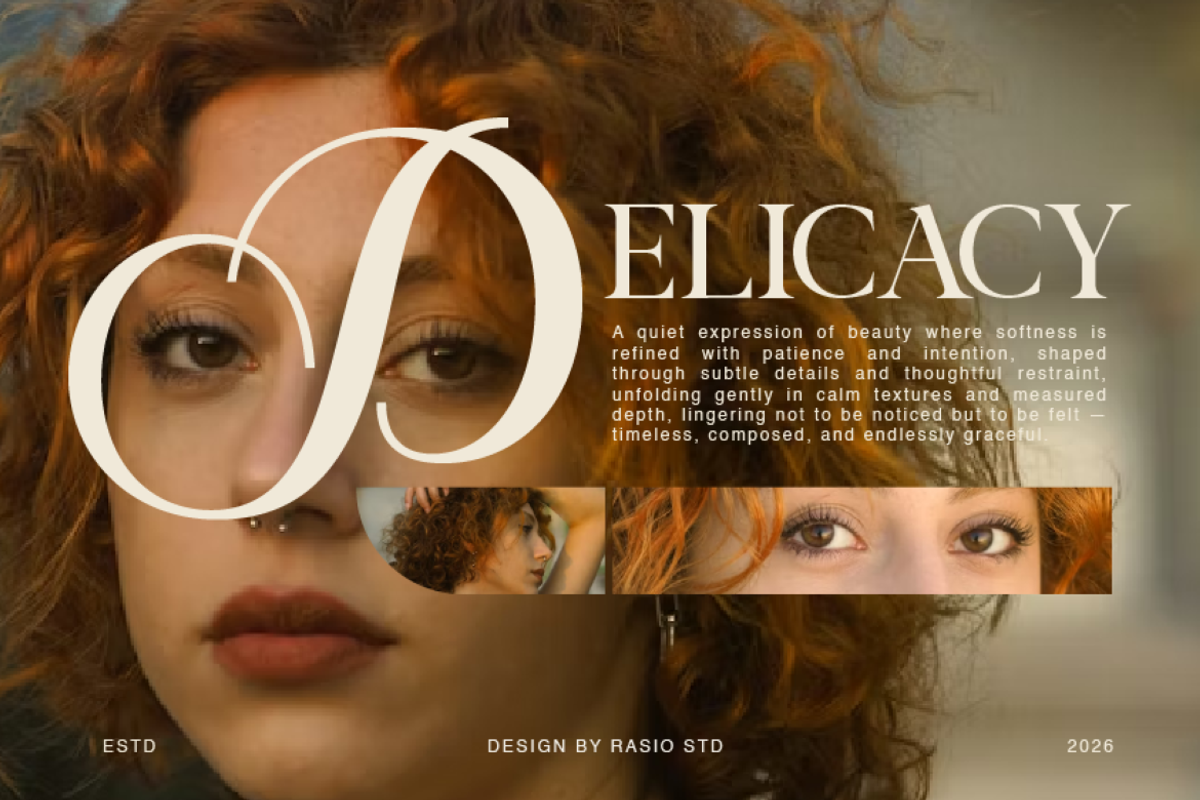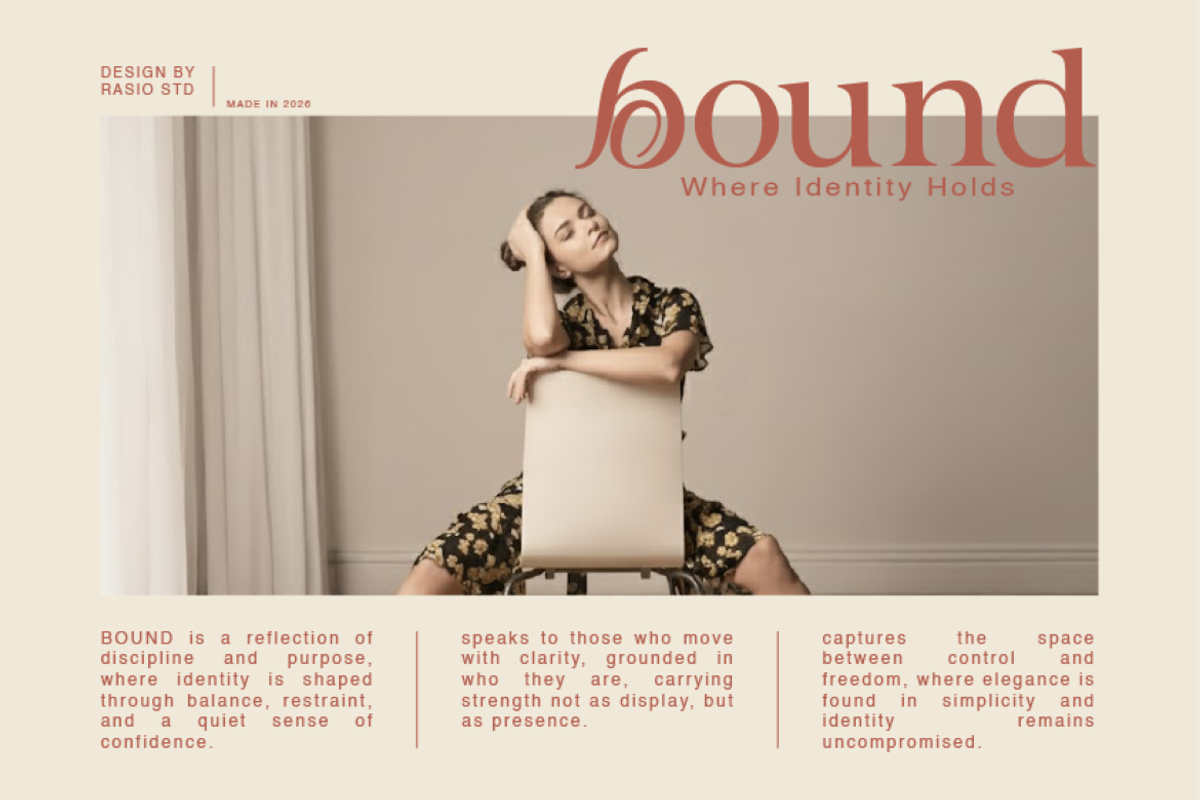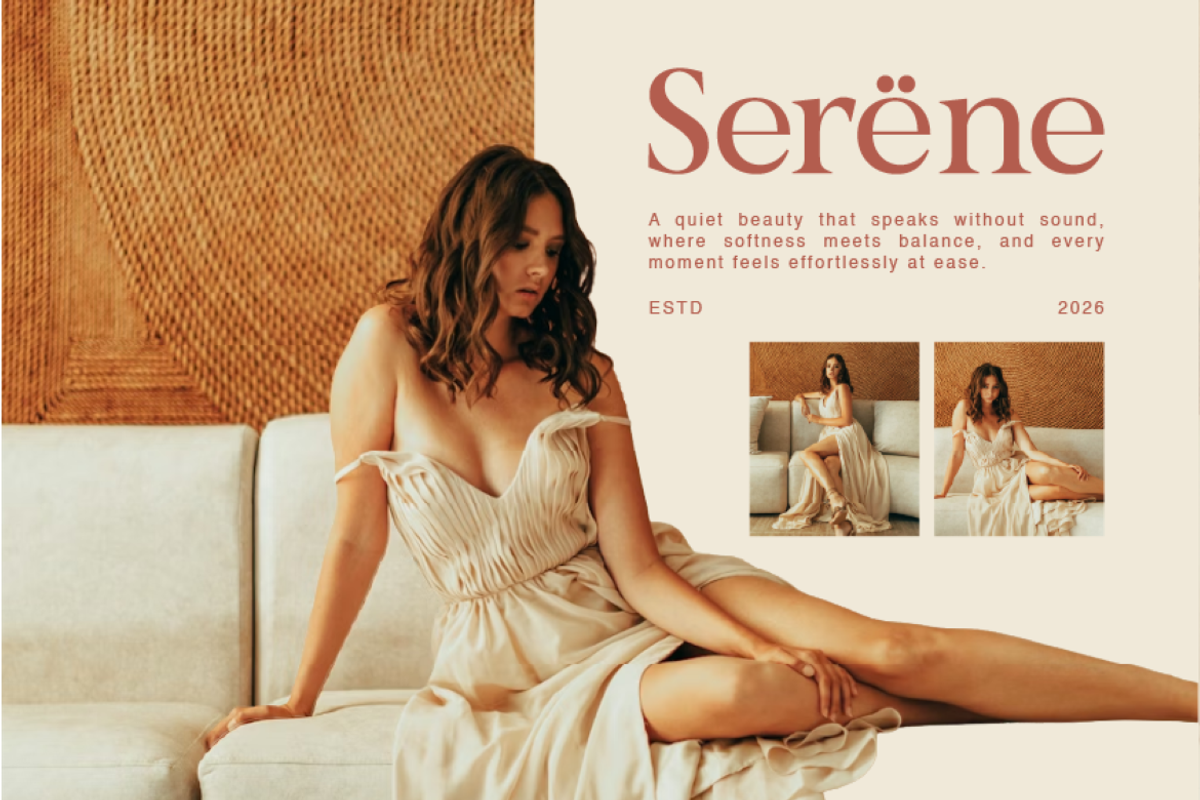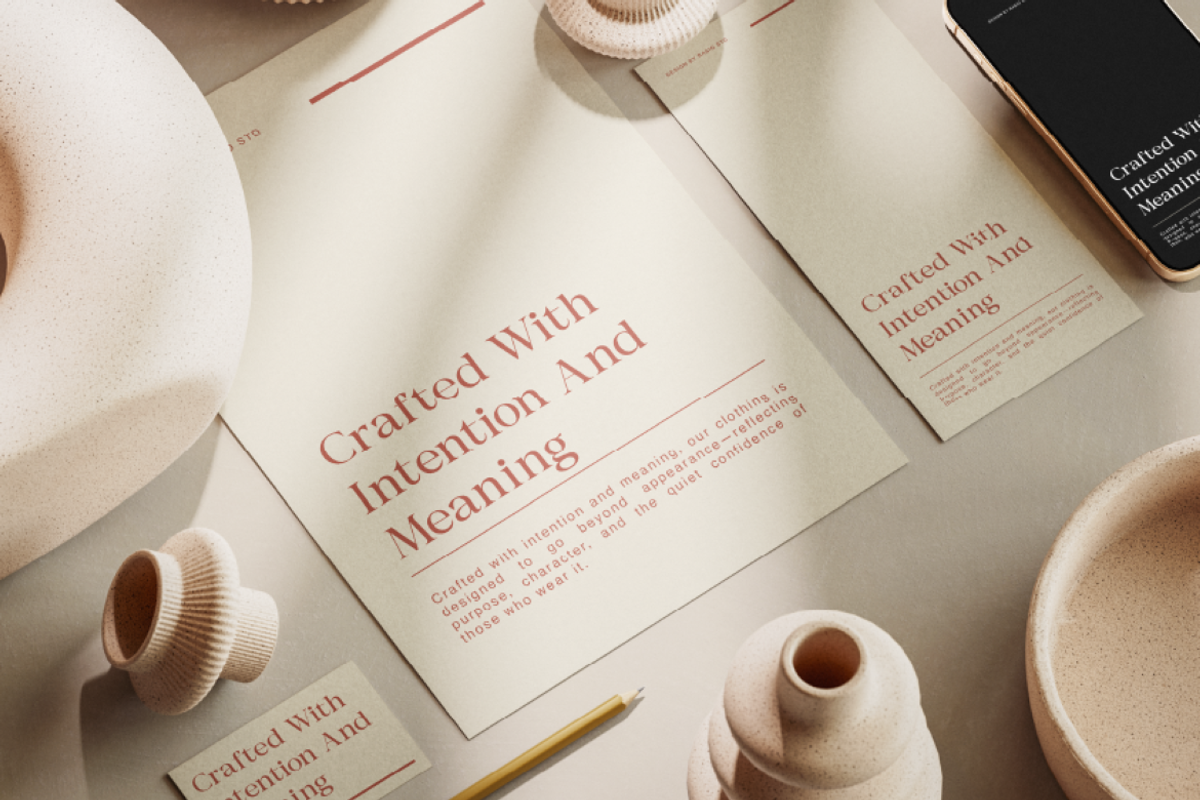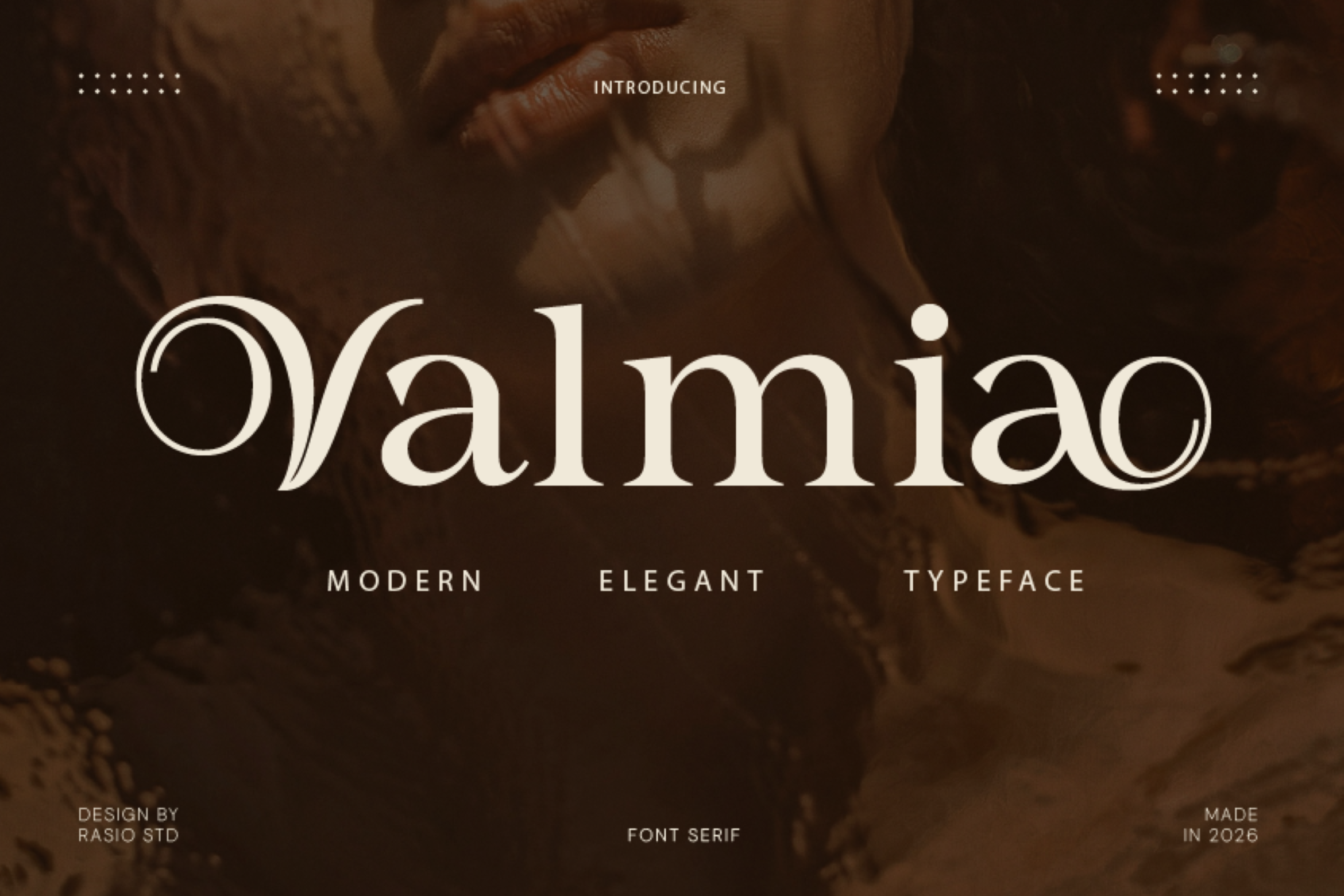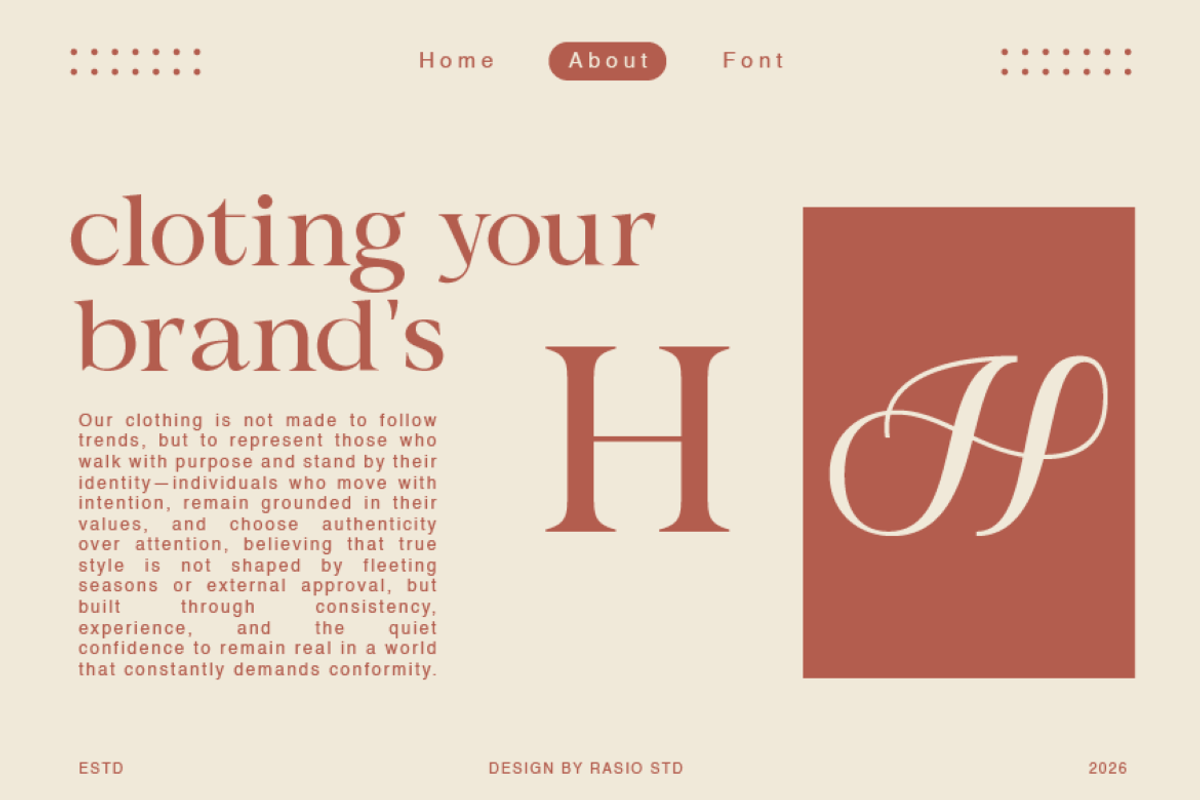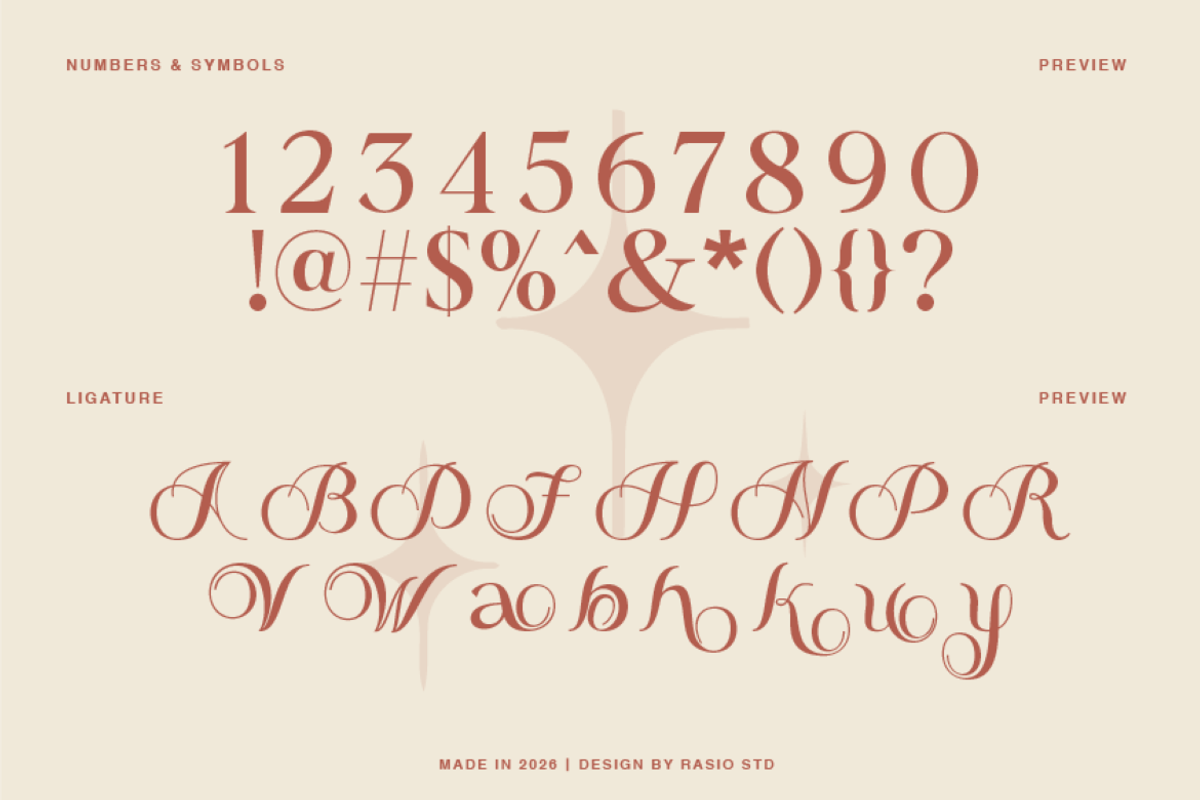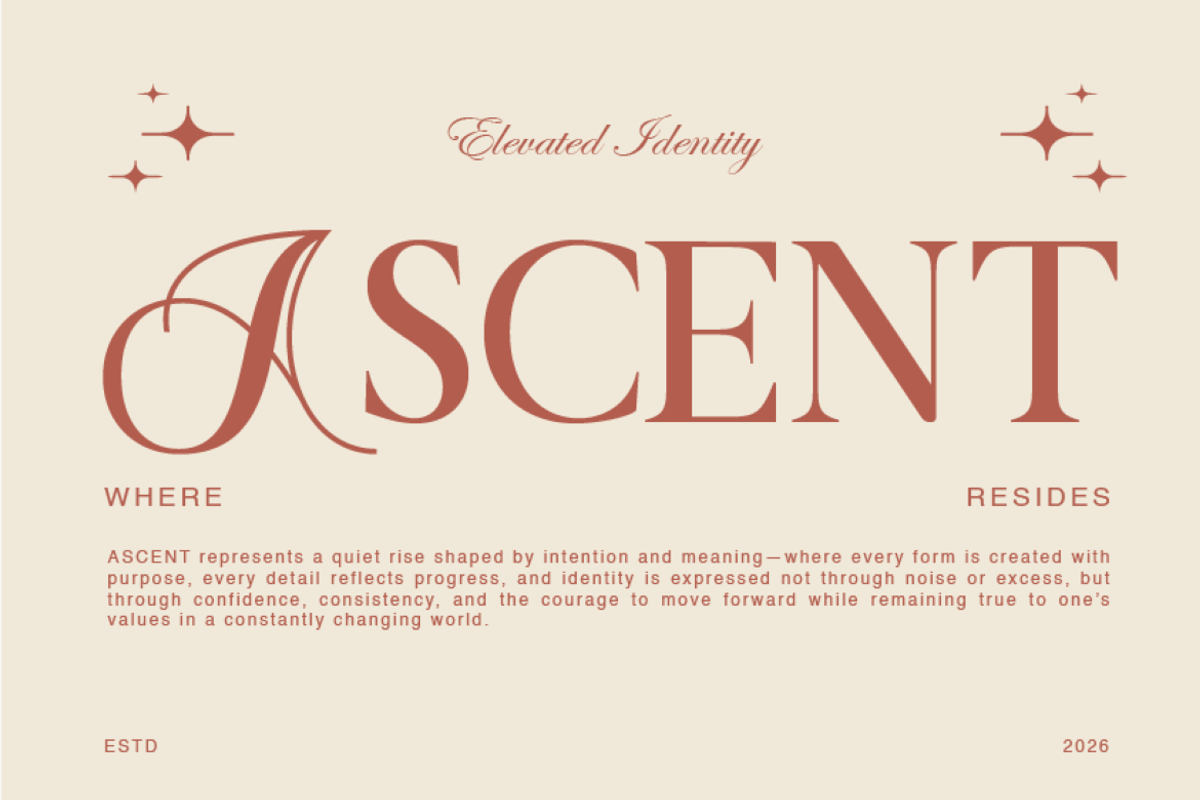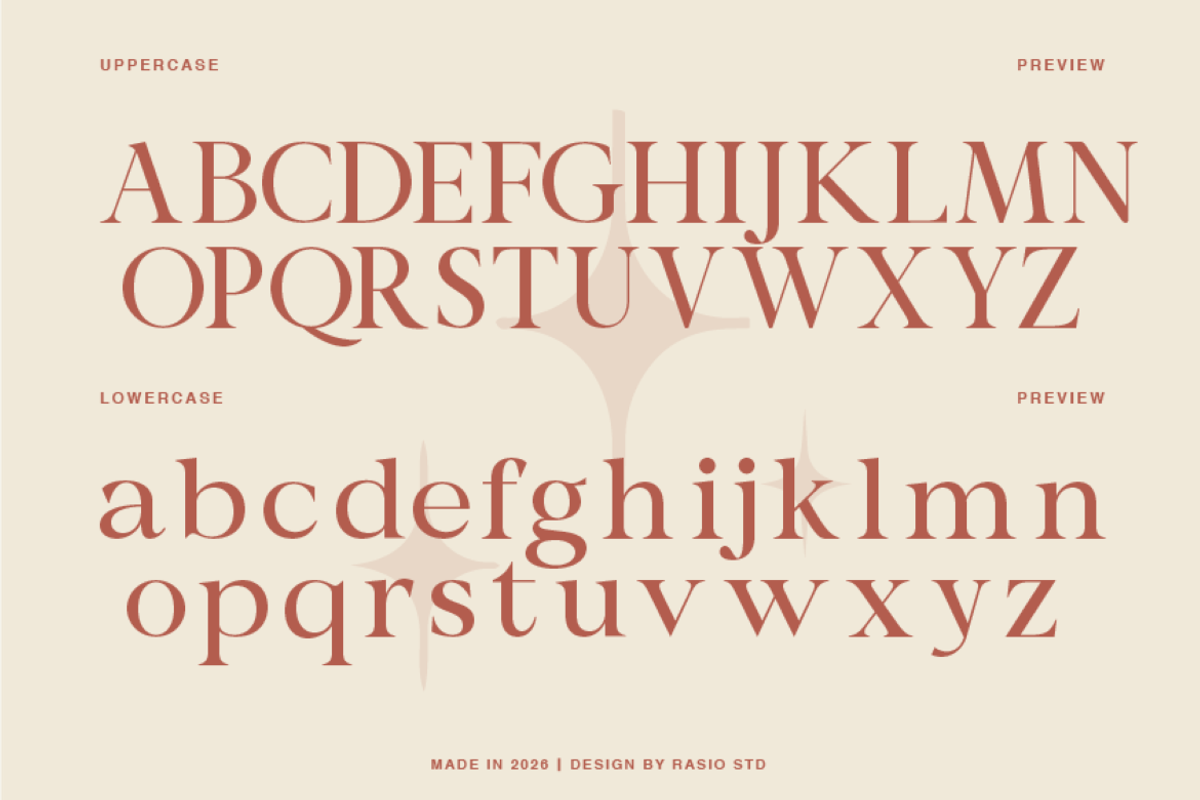
Valmia Modern Elegant Typeface Font
Valmia is a modern elegant serif typeface designed with refined contrast and graceful letterforms. The font blends classic serif structure with contemporary curves and decorative ligatures, creating a sophisticated and expressive typographic style. Its smooth transitions and stylish details give the typeface a distinctive editorial presence while maintaining readability and balance.
Valmia is designed for elegant editorial and luxury branding projects that require expressive typography and refined visual character. Its stylish ligatures and modern serif structure work well for fashion branding, beauty packaging, magazine titles, logo design, luxury product marketing, and creative editorial layouts where typography becomes the focal point.
- Elegant serif structure with refined contrast between thick and thin strokes
- Graceful curves and delicate terminals that create a sophisticated appearance
- Distinctive decorative ligatures that add expressive typographic character
- Balanced proportions with smooth transitions for harmonious readability
- Carefully crafted spacing that enhances clarity in display and editorial layouts
- Luxury brand identity systems seeking refined and elegant typography
- Editorial magazines, fashion lookbooks, and stylish publication layouts
- Premium product packaging and cosmetic or beauty branding
- Elegant logo design and sophisticated visual identity projects
- Social media graphics and marketing visuals with modern editorial aesthetics